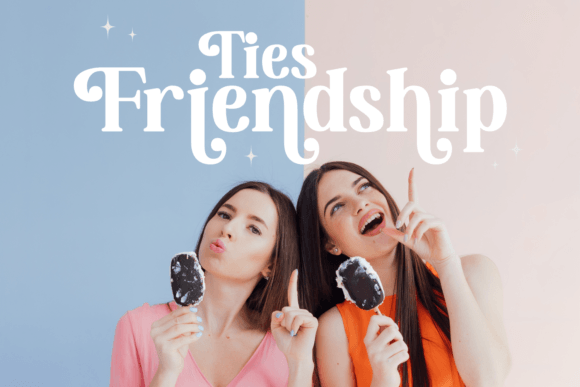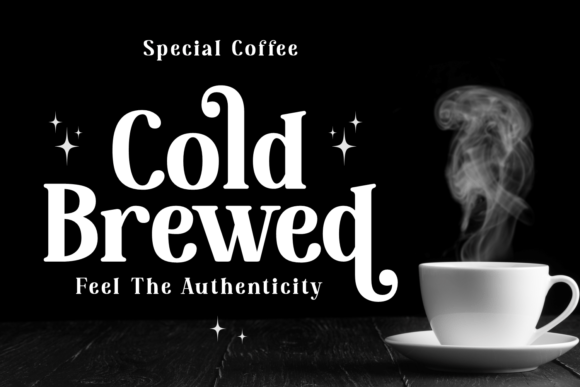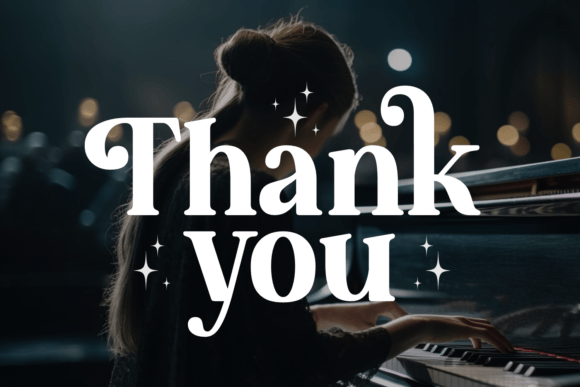
Beautiful Melody Font
Beautiful Melody is a timeless serif font exuding elegance and sophistication. With its clean lines and classic proportions, Beautiful Melody evokes a sense of refinement and professionalism. Perfect for editorial design, branding, and luxury applications, Beautiful Melody adds a touch of timeless sophistication to any project, making it truly memorable and captivating.